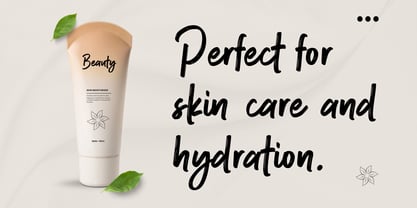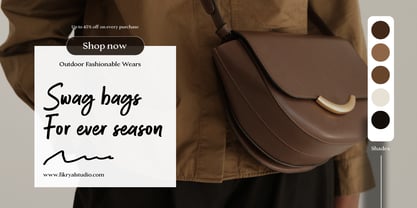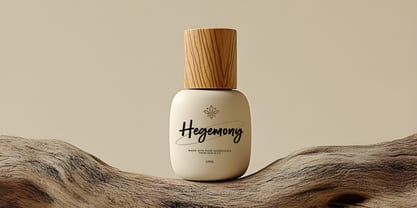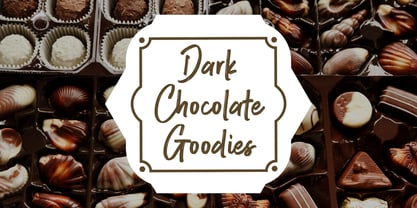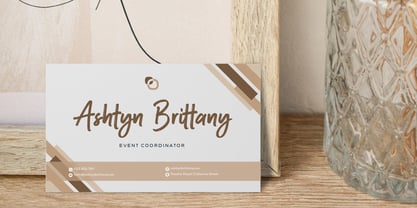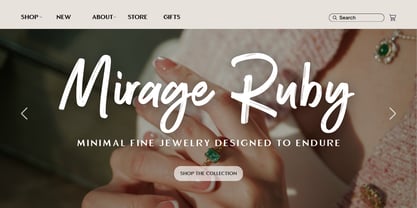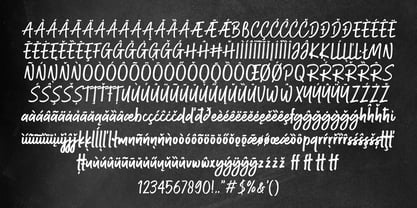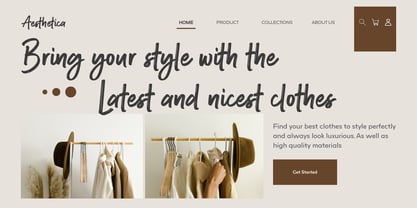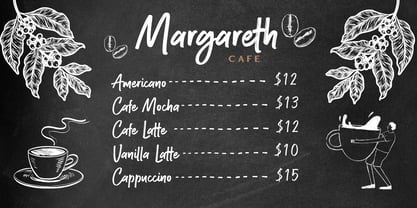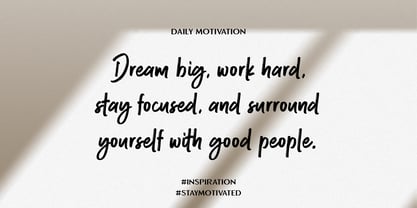
Agatha Mitchellin
by Fikryal
The Agatha Mitchellin Font Family was designed by Muhammad Fikry and published by Fikryal. Agatha Mitchellin contains 1 styles. More about this family
Agatha Mitchellin is a bold brush script font inspired by natural hand-painted lettering. Featuring expressive strokes and organic brush movement, this font delivers a strong and artistic handwritten character that feels both modern and authentic. The dynamic brush texture and smooth flowing forms give Agatha Mitchellin a lively and handcrafted appearance, making it an excellent choice for designers looking to create impactful typography with a natural feel. Agatha Mitchellin works beautifully for branding, logos, packaging, posters, social media graphics, and various creative design projects that require bold and expressive lettering. With its natural brush style and strong visual presence, Agatha Mitchellin brings energy, personality, and artistic flair to any design composition. Features • Uppercase and Lowercase Characters • Natural Brush Script Style • Ligatures and Alternate Characters • Punctuation and Symbols • Multilingual Support Applications Agatha Mitchellin is well suited for a wide range of design purposes including: Branding and identity Logo design Posters and headlines Packaging design Fashion and lifestyle branding Social media graphics T-shirt designs Creative typography projects
Designers: Muhammad Fikry
Foundry: Fikryal